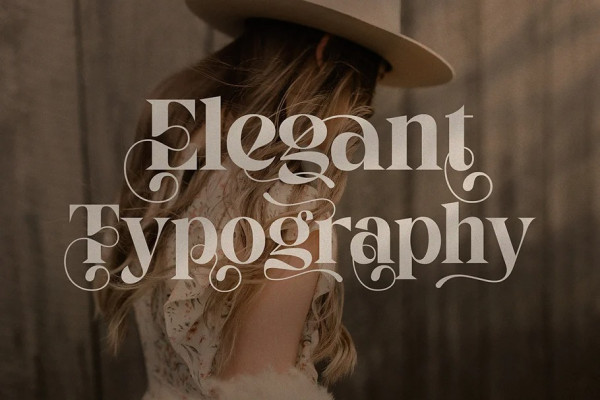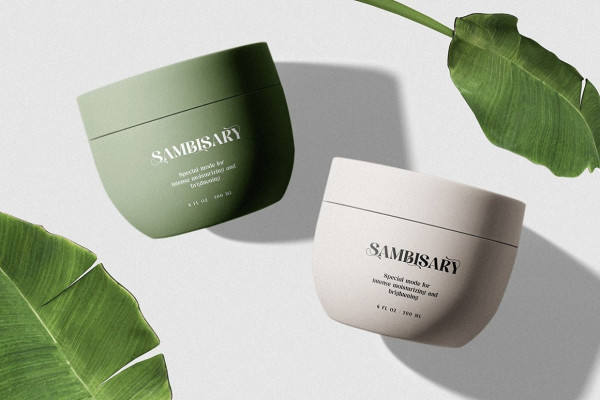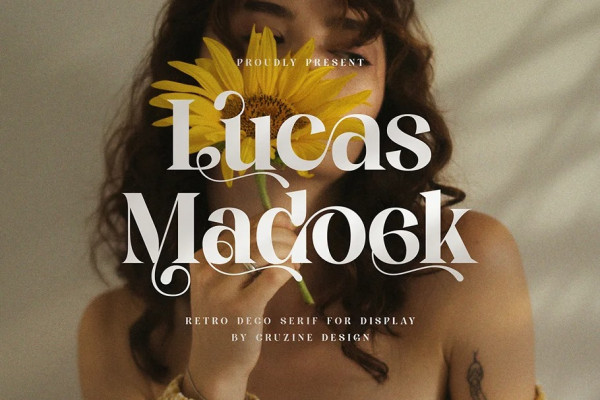
Lucas Madock Font
Lucas Madock Font – Trendy, elegant, modern, retro & decorative style serif font for your new modern projects. Luxury, artistic, fancy, bold and fashion style on Lucas Madock font will be great for any branding project. Lot of alternates and ligatures will help you to create unique and original logo design or website header!